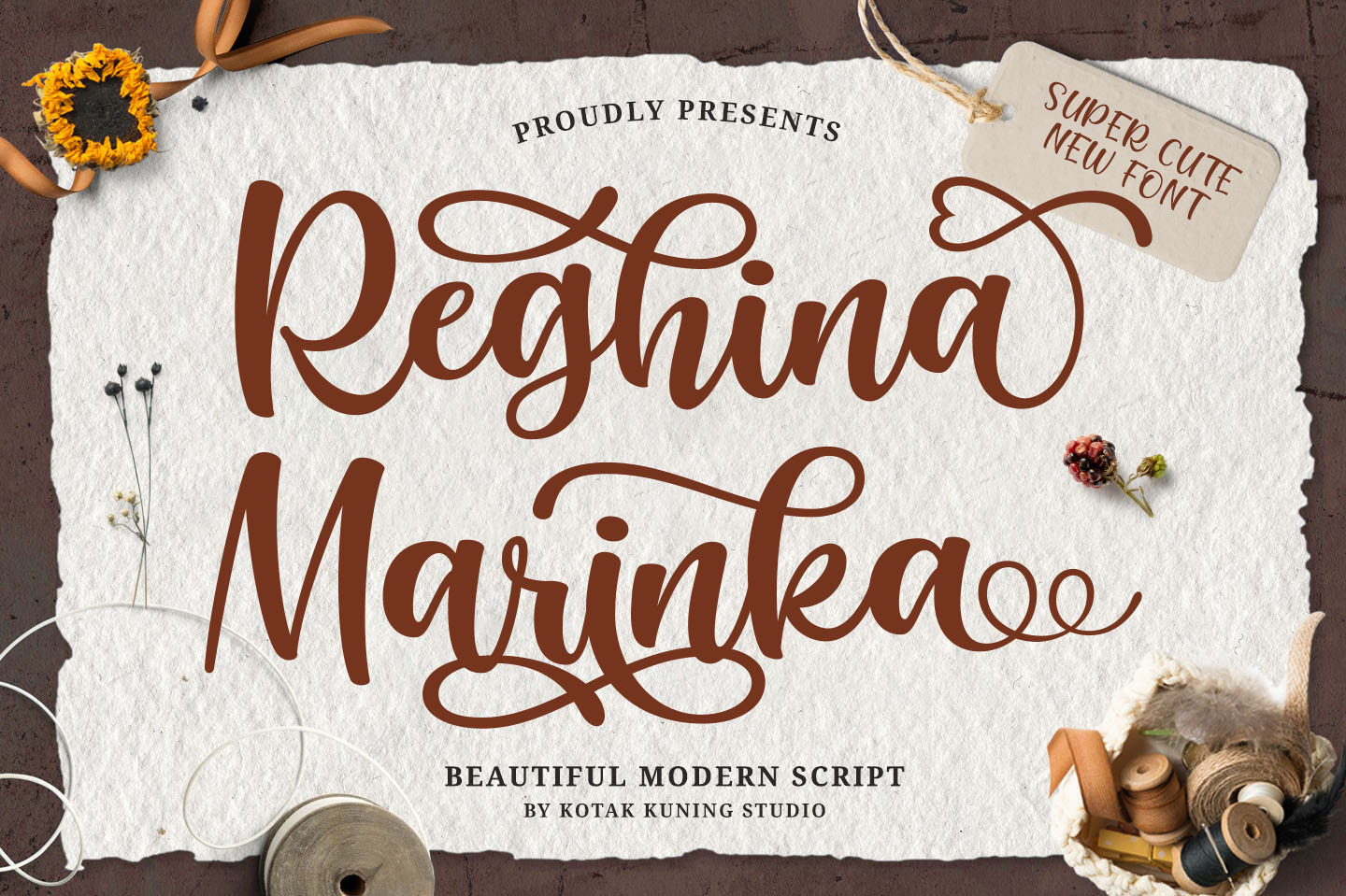
Reghina Marinka - Modern Script Font
Reghina Marinka is an elegant script font with a contemporary atmosphere and impeccable form, inspired by timeless classic calligraphy. Not too thin and not too thick, balanced and varied, this font was designed to enhance the beauty of your projects.
Reghina Marinka is perfect for many different projects such as logos & branding, invitation, stationery, wedding designs, social media posts, advertisements, product packaging, product designs, label, photography, watermark, special events, or anything.